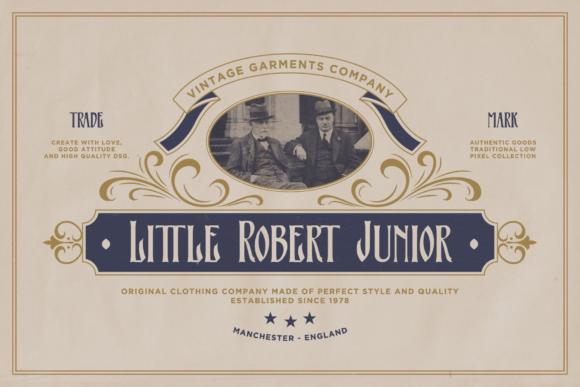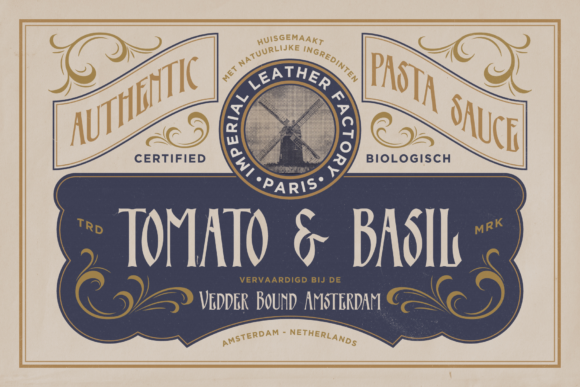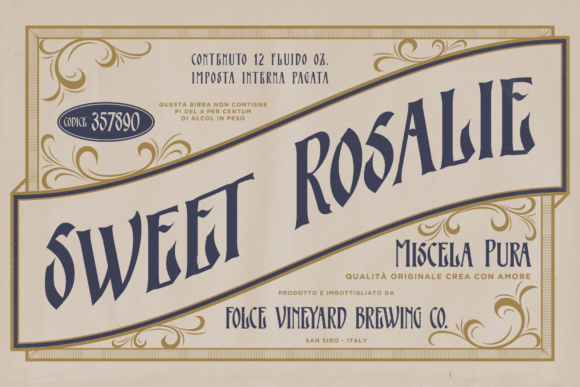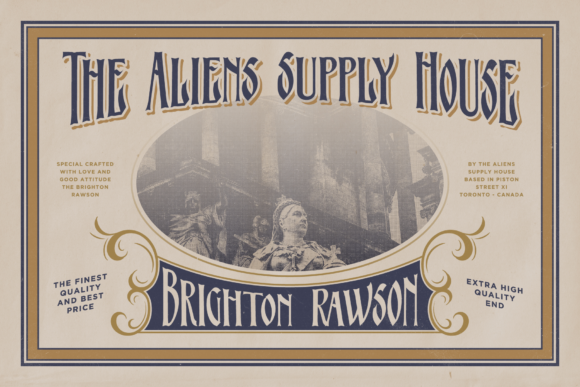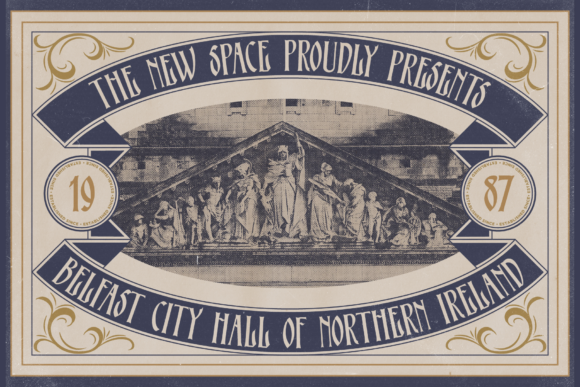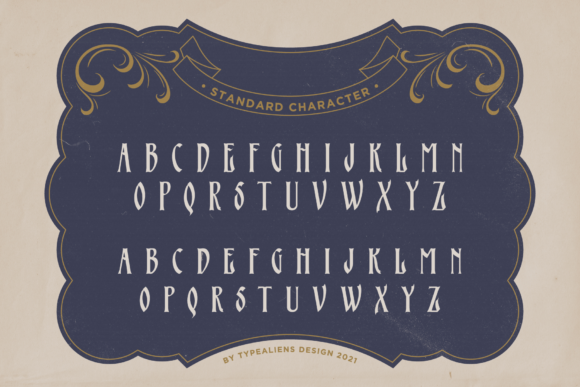
Giorna Velusca Font: Elevate Your Designs with a Vintage Flair
In the world of typography, fonts play a crucial role in conveying the tone and personality of a design. For designers and crafters looking to add a touch of vintage charm to their creations, Giorna Velusca is an exceptional choice. This stunning display font is not only visually striking but also incredibly versatile, making it an invaluable asset to any font library.
The Unique Charm of Giorna Velusca
Giorna Velusca is a vintage-styled and assertive display font that exudes confidence and character. Its unique design combines classic elements with a modern twist, resulting in a truly distinctive look that sets it apart from other fonts. Whether you’re working on a branding project, a poster, or a digital advertisement, Giorna Velusca is sure to make a statement.
Key Features of Giorna Velusca
- Vintage Flair: Giorna Velusca boasts a classic, vintage aesthetic that’s perfect for designs that require a touch of nostalgia or sophistication.
- Assertive and Bold: This font is designed to make a statement, with bold lines and confident lettering that demands attention.
- Versatility: Giorna Velusca can be used across a wide range of design projects, from branding and advertising to packaging and editorial design.
- Elegant and Refined: Despite its bold nature, Giorna Velusca maintains an air of elegance and refinement, making it suitable for high-end designs and luxury brands.
Why Choose Giorna Velusca?
With so many fonts available, why should designers and crafters choose Giorna Velusca? Here are a few compelling reasons:
- Instant Recognition: The unique design of Giorna Velusca ensures that your designs will stand out and be instantly recognizable.
- Time-Saving: With Giorna Velusca, you can achieve professional-looking results without spending hours searching for the perfect font or tweaking settings.
Tips for Using Giorna Velusca Effectively
To get the most out of Giorna Velusca, consider the following tips:
- Pair with Neutral Fonts: Combine Giorna Velusca with neutral fonts to create visual interest and hierarchy in your designs.
- Experiment with Colors: Take advantage of Giorna Velusca’s bold design by experimenting with different colors and gradients.
- Use for Headings and Titles: Giorna Velusca is perfect for headings and titles, where its bold and assertive nature can shine.
Giorna Velusca is a truly exceptional font that can elevate any design project. Its unique blend of vintage charm and assertive boldness makes it an invaluable asset for designers and crafters looking to create stunning visuals. With its versatility, elegance, and instant recognition, Giorna Velusca is sure to become a go-to font in your library.